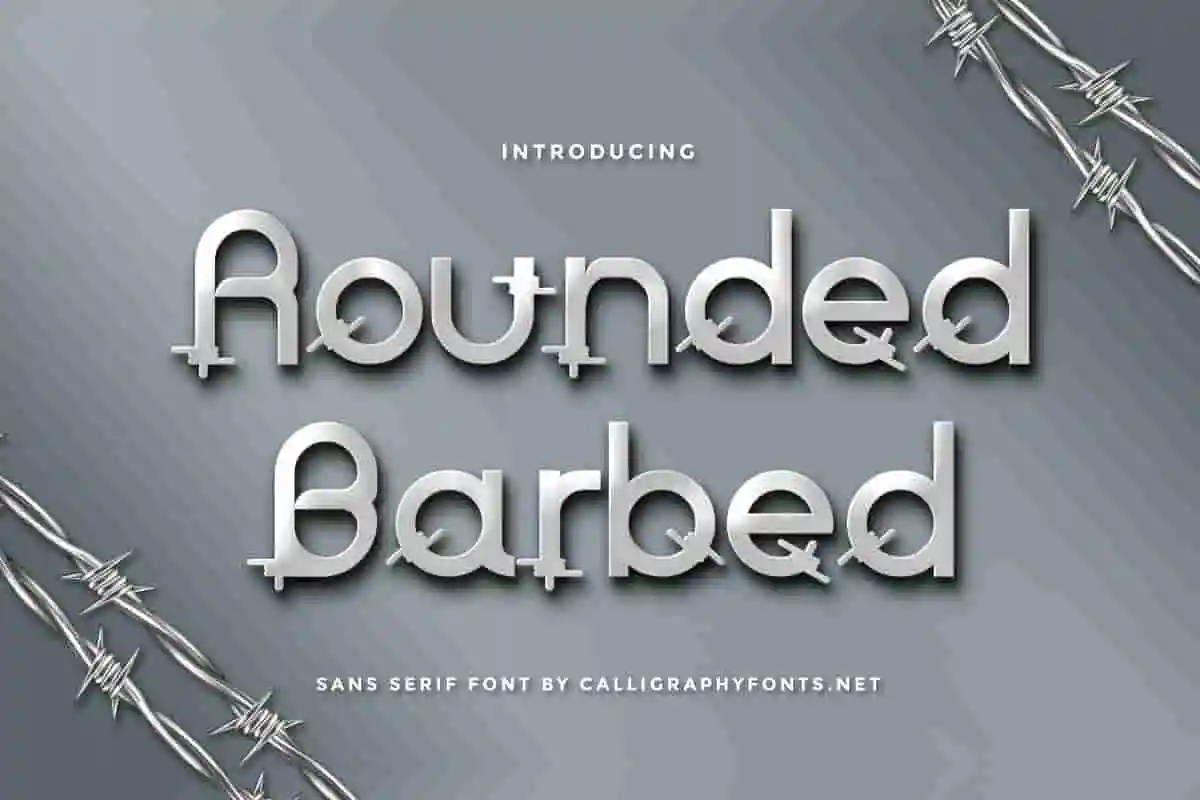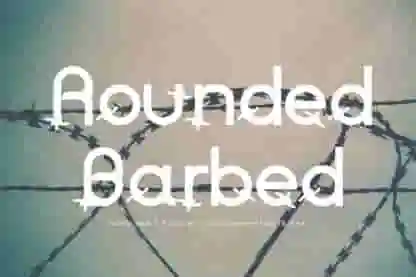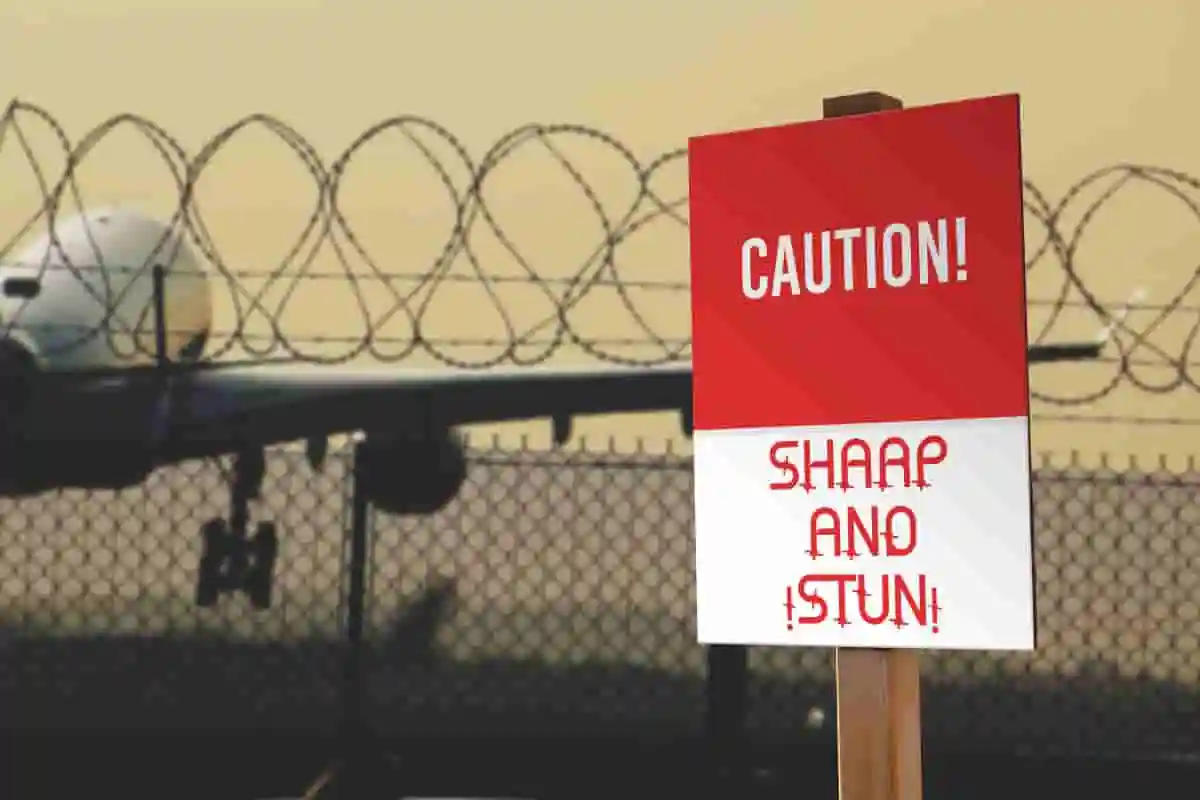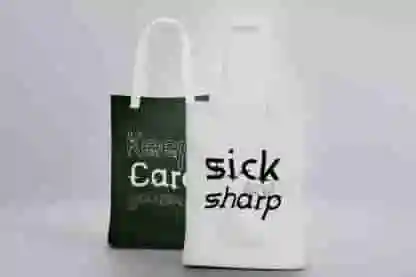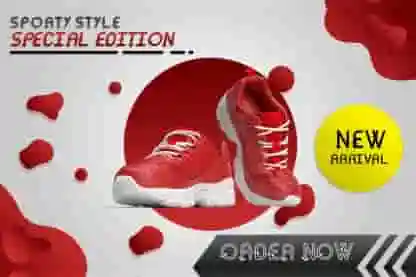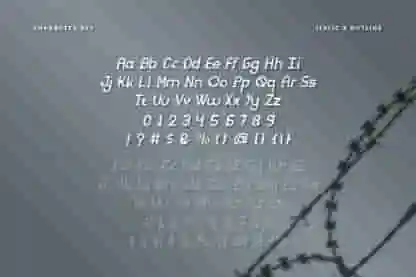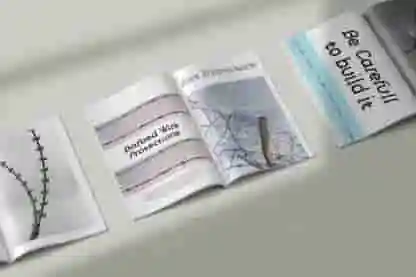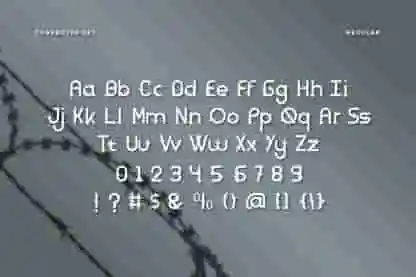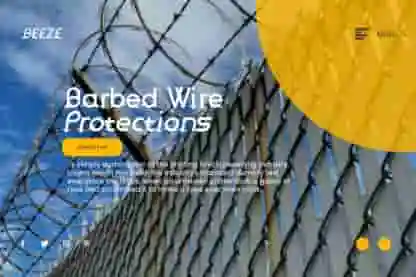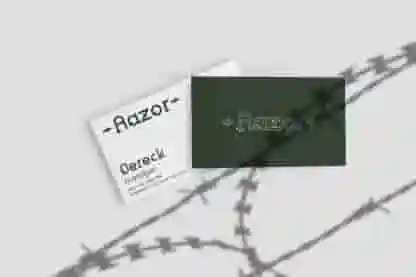
Rounded Barbed Display Font
Rounded Barbed Font is barbed in war zone inspired font family originally made by CalligraphyFonts.net. It has great characters that will be awesome for games, poster, headlines, flyer etc
Rounded Barbed Font is a unique display font family, inspired from barbed at war zone. The font will be awesome for games, brands, packaging, invitation, events. etc. Rounded Barbed Font will suit many industries and categories related to games, play, war, apps, kids, humor, family etc. It will work well for books, packaging, toys, ornaments etc
Introducing Rounded Barbed Display Font, a typeface that breaks boundaries with confidence. This display font combines sharp attitude with smooth curves, delivering a truly unique style that grabs attention and holds it.
Perfectly crafted for designers who dare to stand out, Rounded Barbed balances modern minimalism with just the right amount of rebellious flair. Use it to bring power and personality to your design work — from posters and headlines to branding, logos, apparel, and album covers.
Whether you’re creating urban streetwear visuals or eye-catching editorial layouts, this font thrives in bold, expressive projects.
Whether you’re crafting logos, album covers, posters, or branding materials, Rounded Barbed offers that extra punch you’ve been searching for. It stands out in any setting – from streetwear campaigns to cutting-edge web design.
- Branding & Logo Design
- Apparel Graphics
Rounded Barbed Display Font has three styles included : Regular, Italic and Outlined. The fonts had been already tested Work on PC & Mac.